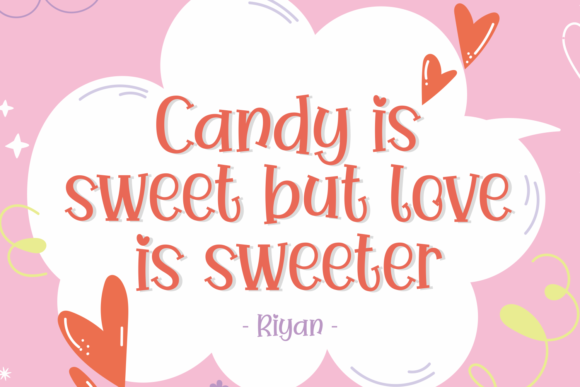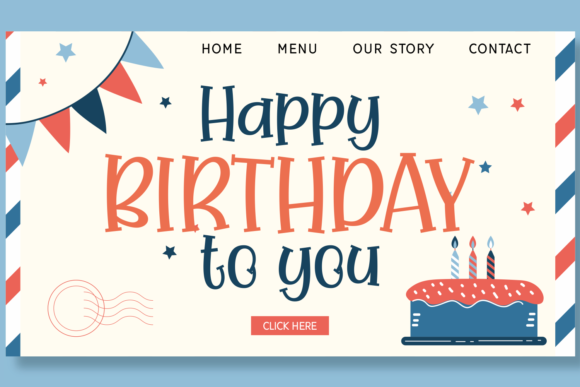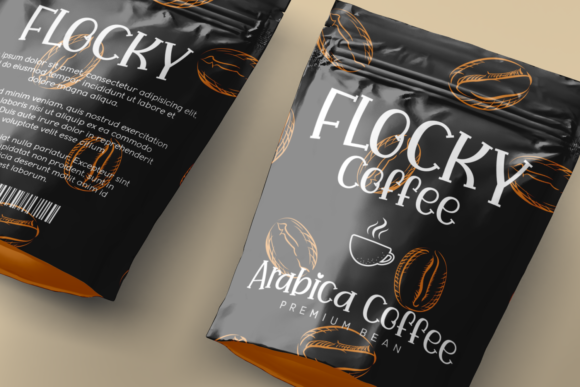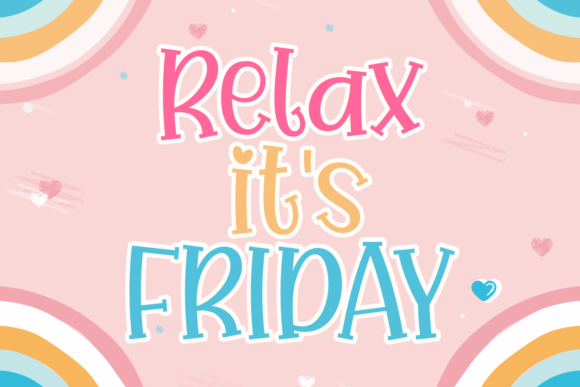
Introduction to Relax It’s Friday Font
Relax It’s Friday is a cute and feminine Display font.
You can see the characters are with a slanted effect This playful serif font is perfect for quotes, children-themed designs, logos, posters, birthday cards, food&drinks menus, etc.